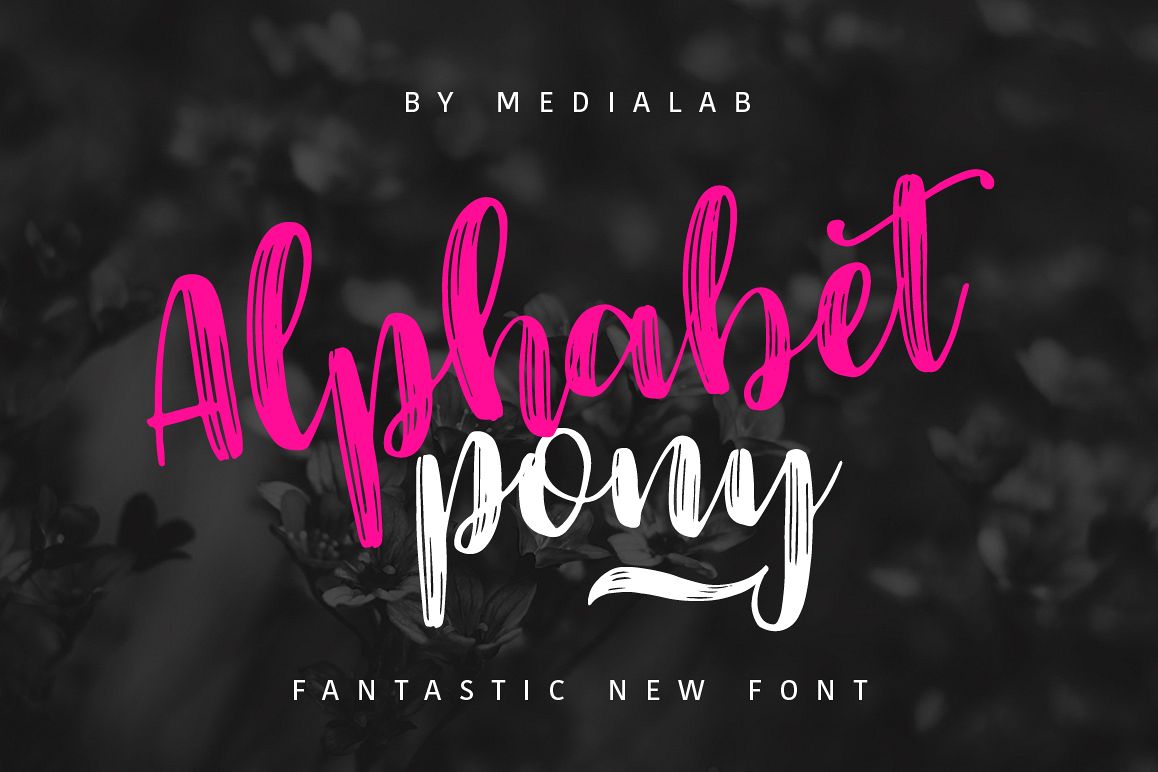
Alphabet Pony handwritten script
Alphabet Pony - a new fresh handmade calligraphy font. Very suitable for greeting cards, branding materials, business cards, quotes, posters, and more!
• Support ALL European Languages